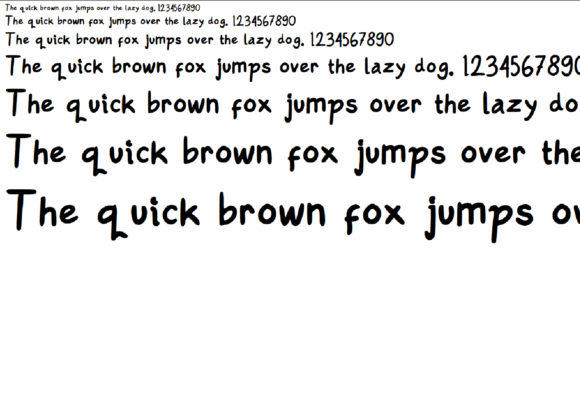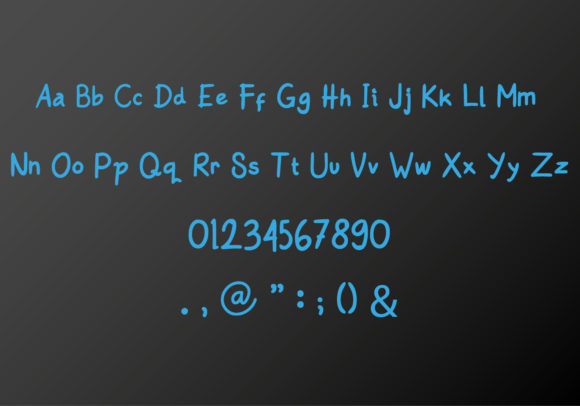
Introducing GSI Handwriting Font: Bringing a Touch of Personality to Your Designs
GSI Handwriting Font is a simple and natural handwritten font that can instantly elevate your design ideas and bring them to life. Whether you’re a designer, crafter, or DIY enthusiast, this versatile font is perfect for adding a personal touch to your projects. In this article, we’ll explore the features and benefits of GSI Handwriting Font, and show you how to make the most of it in your designs.
Handwritten fonts have a unique charm that can add warmth and personality to any design. They evoke a sense of human touch and can make your projects feel more approachable and relatable. GSI Handwriting Font is no exception, with its natural and effortless style that mimics the look of handwriting. This font is perfect for designs that require a personal and friendly tone, such as invitations, greeting cards, and social media graphics.
Key Features of GSI Handwriting Font
- Simple and Natural Style: GSI Handwriting Font has a simple and natural style that makes it easy to read and understand.
- Versatile: This font is versatile and can be used in a wide range of design projects, from digital graphics to print materials.
- High-Quality: This font is of high quality, with clear and crisp letters that will make your designs stand out.
Design Ideas Using GSI Handwriting Font
GSI Handwriting Font is perfect for a wide range of design projects, including:
- Invitations and Greeting Cards: Add a personal touch to your invitations and greeting cards with GSI Handwriting Font.
- Social Media Graphics: Use GSI Handwriting Font to create engaging social media graphics that stand out.
- Blog and Website Headers: Add a touch of personality to your blog or website headers with GSI Handwriting Font.
- Crafting and DIY Projects: Use GSI Handwriting Font to add a personal touch to your crafting and DIY projects, such as signs, banners, and labels.
Tips and Tricks for Using GSI Handwriting Font
Here are some tips and tricks for using GSI Handwriting Font in your designs:
- Mix and Match Fonts: Mix and match GSI Handwriting Font with other fonts to create a unique and interesting design.
- Keep it Simple: Keep your design simple and clean to let the font shine.
GSI Handwriting Font is a simple and natural handwritten font that can add a touch of personality to your designs. With its versatile style and ease of use, this font is perfect for designers, crafters, and DIY enthusiasts. Whether you’re creating invitations, social media graphics, or crafting projects, GSI Handwriting Font is sure to bring your designs to life. So why not give it a try and see the difference it can make?